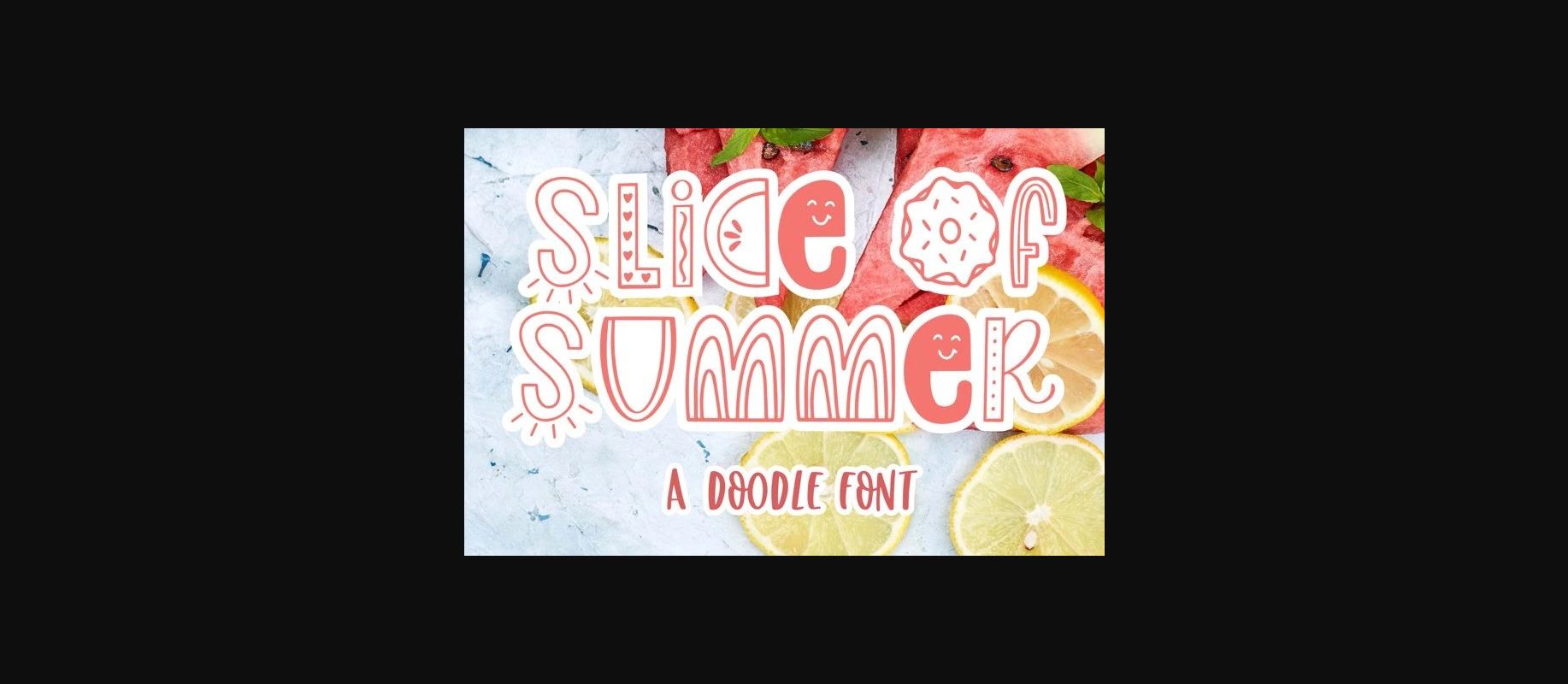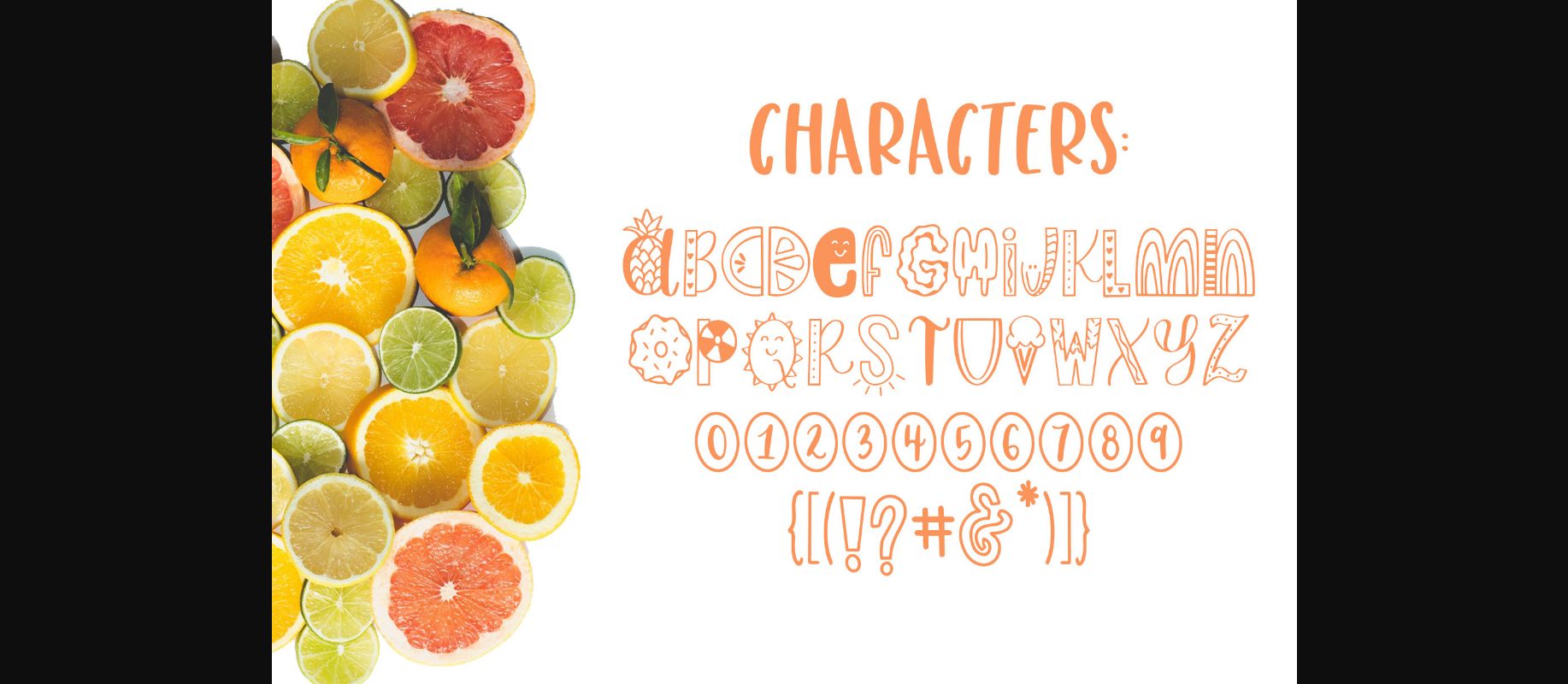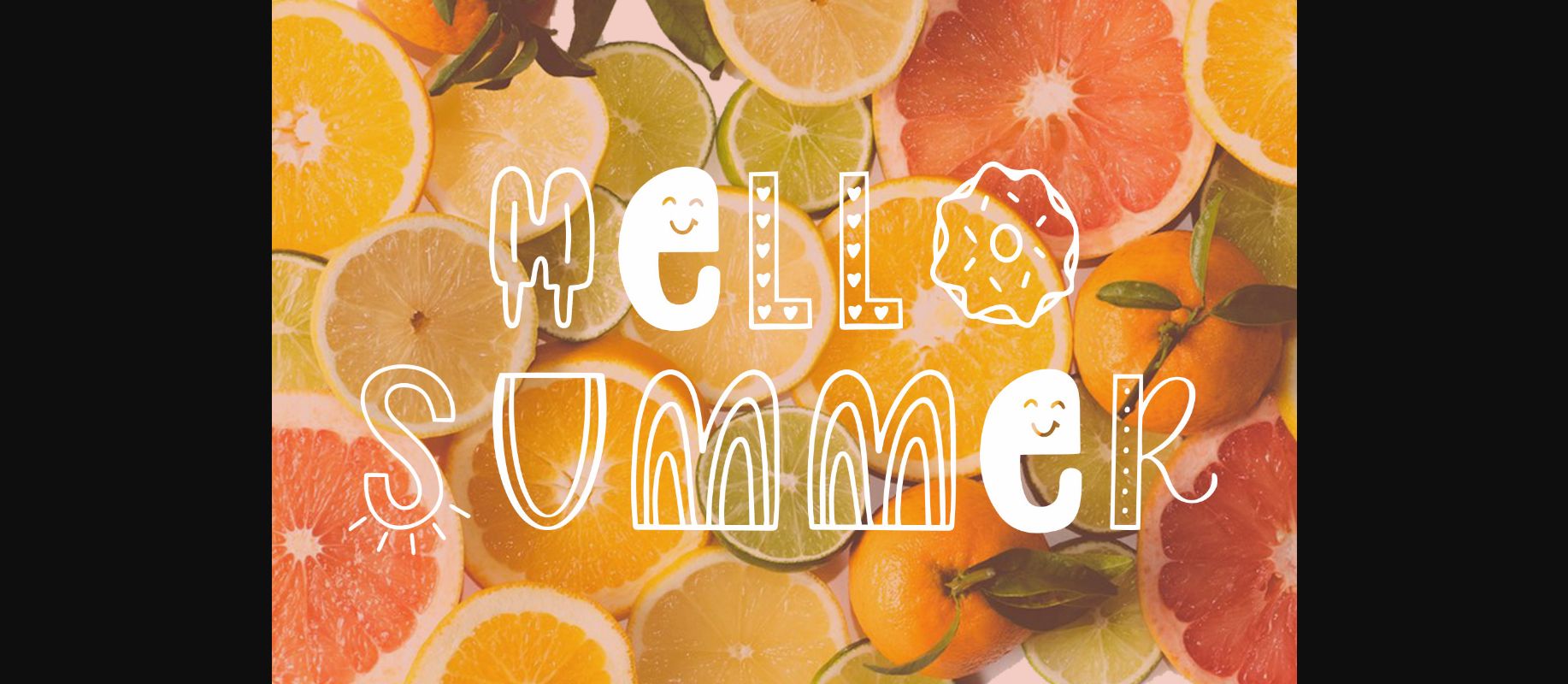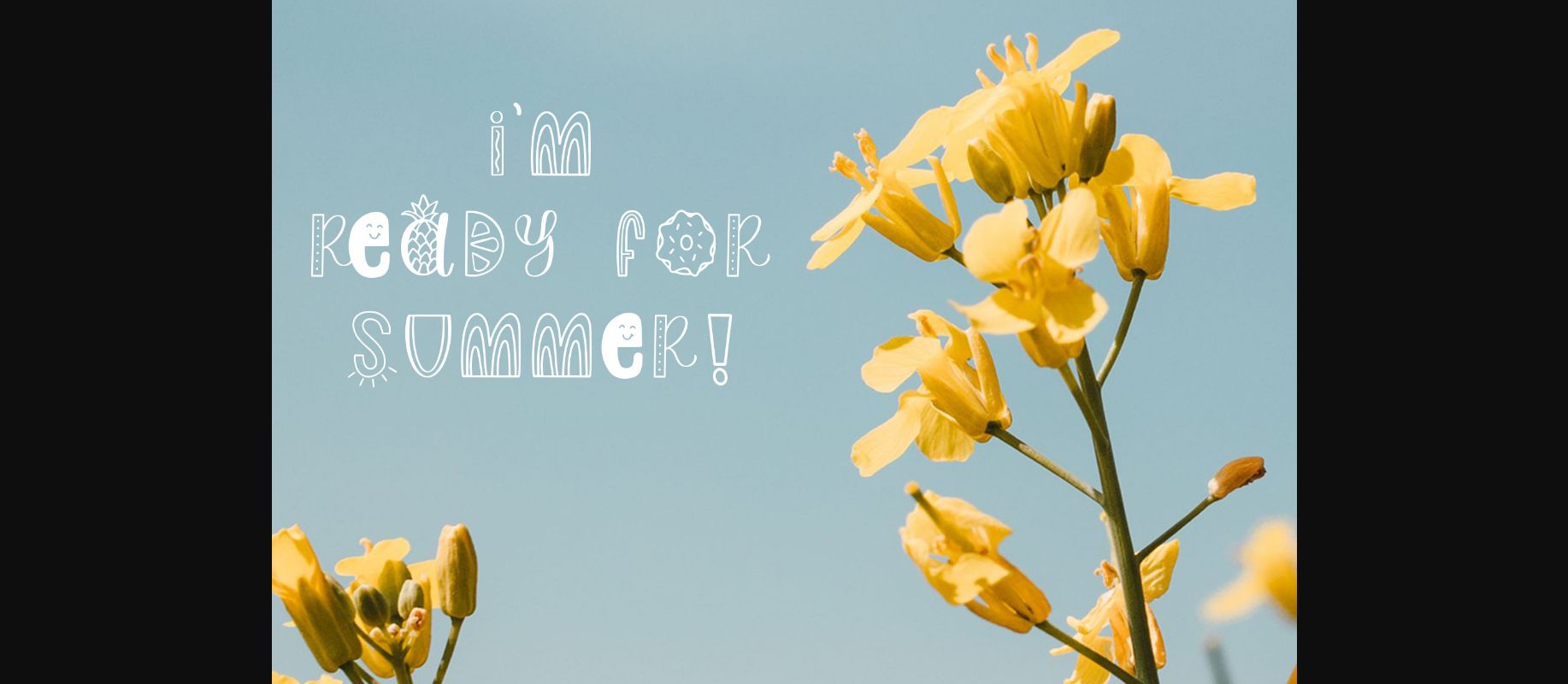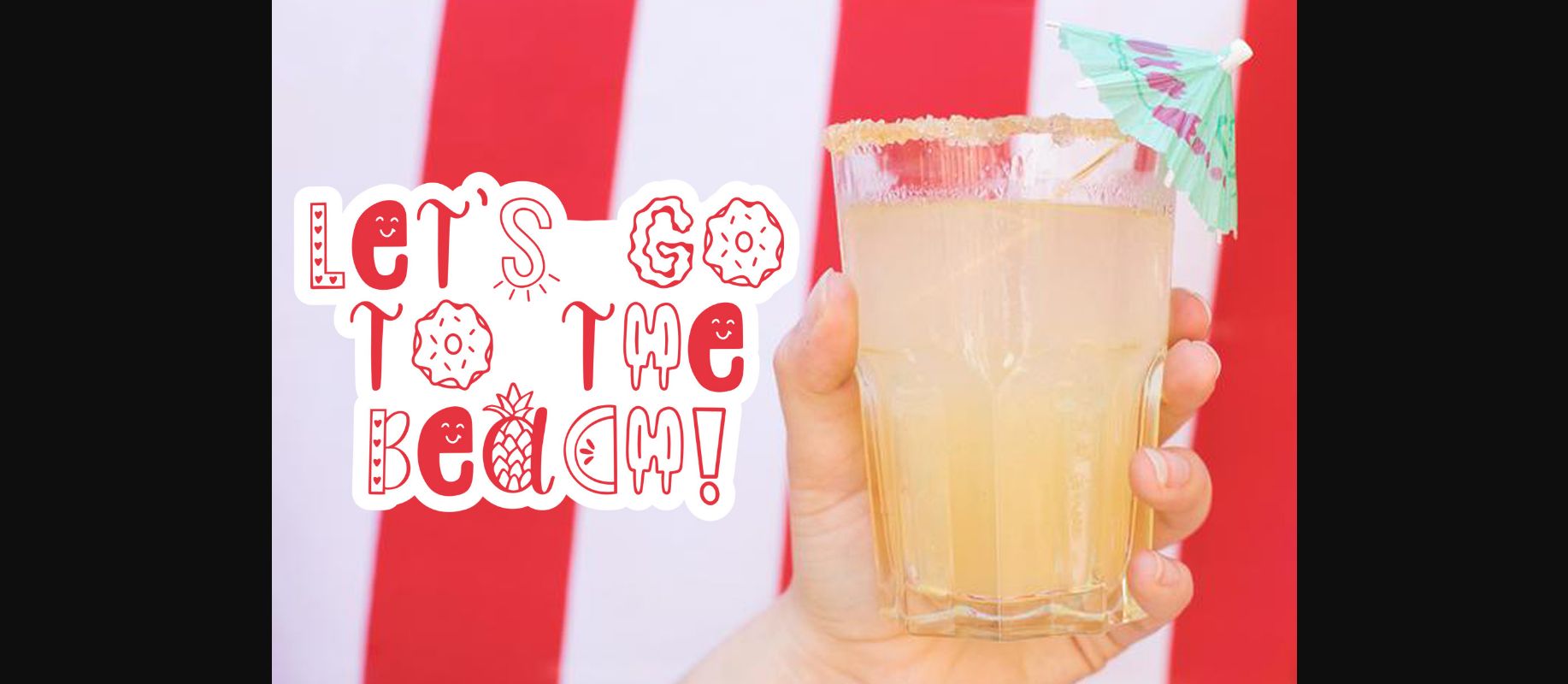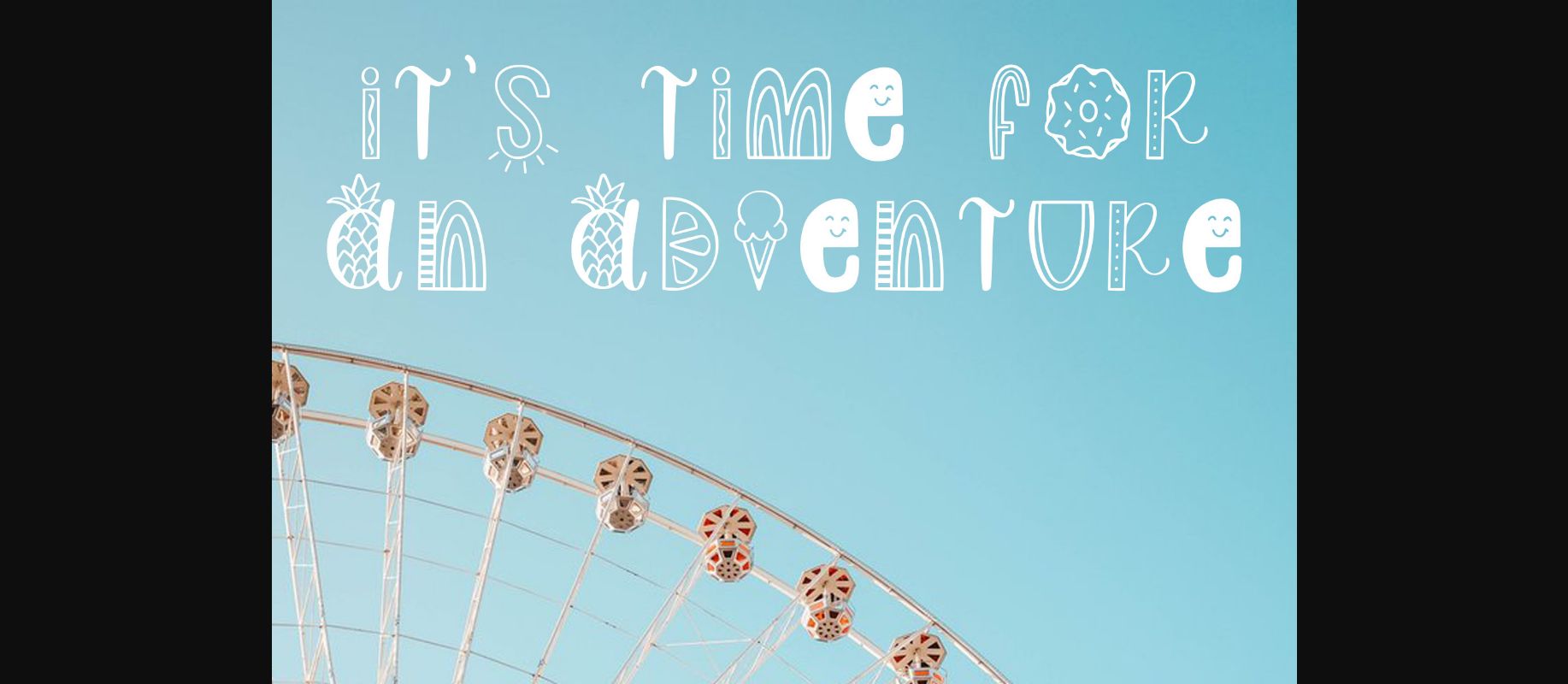
HomeDecorative FontsSlice of Summer Font Decorative Fonts Slice of Summer Font FacebookXPinterestWhatsApp 1 of 8 ... Slice of Summer Font Poster 2... Slice of Summer Font Poster 3... Slice of Summer Font Poster 4... Slice of Summer Font Poster 5... Slice of Summer Font Poster 6... Slice of Summer Font Poster 7... Slice of Summer Font Poster 8... About Slice of Summer Font Introducing Slice of Summer! A fun and quirky summer decorative font. Perfect for making cute summer decor, party invites, and more! DOWNLOAD NOW People also explored Clubhouse Font PN Spizella Font Rainbows Dingbats Font Canthikas Script Font Seddon Penmans Paradise Capitals Miatos Font Althea Font Vintage Style Surround Set of Objects Cr Monday 333 0 TagsSlice of Summer Font Previous articleShine Bright FontNext articleLove Notes Font LEAVE A REPLY Cancel reply Comment: Please enter your comment! Name:* Please enter your name here Email:* You have entered an incorrect email address! Please enter your email address here Website: Save my name, email, and website in this browser for the next time I comment. Personal Use Free Squariess Personal Use Free Read more about this font Cloudy Night Personal Use Free Read more about this font Imelda Personal Use Free Read more about this font Bashira Personal Use Free Read more about this font BLOG Using Fonts in Digital Marketing: Tips to Strengthen Your Brand Identity In the realm of digital marketing, every visual element plays a crucial role in shaping a brand's identity, and fonts are no exception. The... Best Fonts for YouTube Videos: Make Your Thumbnails Stand Out How to Cut Any Font on Cricut: Convert a Font to SVG (Free) To increase your work productivity, choose the most readable fonts.